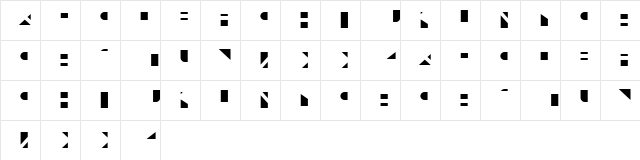
Leculier Color
Design Context for Leculier Typeface
Leculier is a composed and adaptable typeface that performs quietly and consistently across a wide range of design contexts.